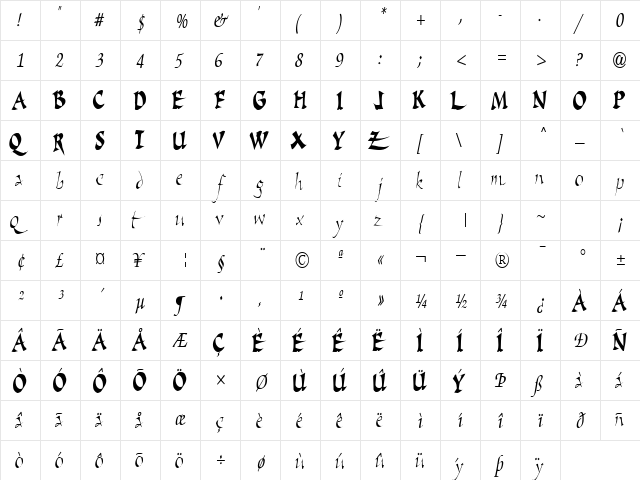
ScriptSongBold15 Bold
Design Context for ScriptSongBold15 Typeface
ScriptSongBold15 brings a calligraphic fluidity to the page — its connecting strokes and expressive curves give it an unmistakably human quality. Its bold stroke weight gives it real presence on the page.
Font Pairing: Combine ScriptSongBold15 with a simple geometric sans for maximum contrast — the tension between flowing curves and clean structure is a classic typographic pairing.
Pro Tip: Pair ScriptSongBold15 with a clean sans-serif for supporting text. The contrast between fluid script and geometric structure creates an elegant typographic hierarchy.